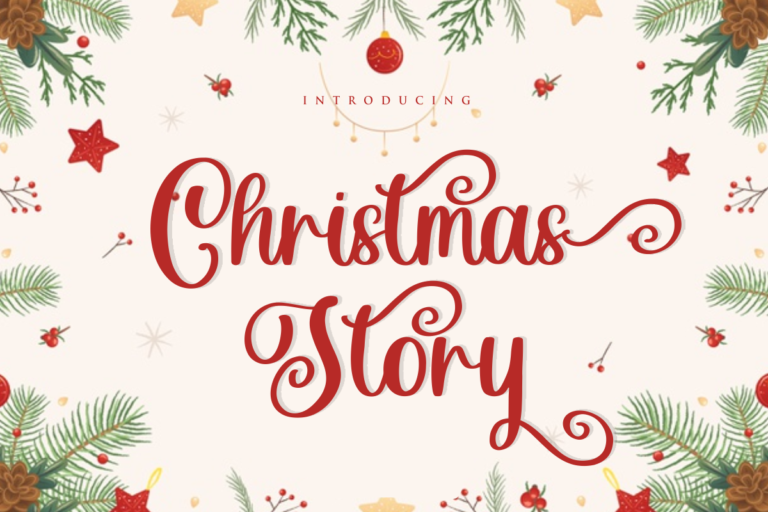
- Christmas Story – Script Font
Christmas Story
Christmas Story – Font is a new stylish script font. It’s perfect for logo,branding, tittle, social media posts, advertisements, product packaging, product designs, label, photography, watermark, special event,magazine,web design,etc.
Features :
Christmas Story ( Uppercase, Lowercase )
Beginning and ending Swashes
Extra Swahes
Middle Swashes